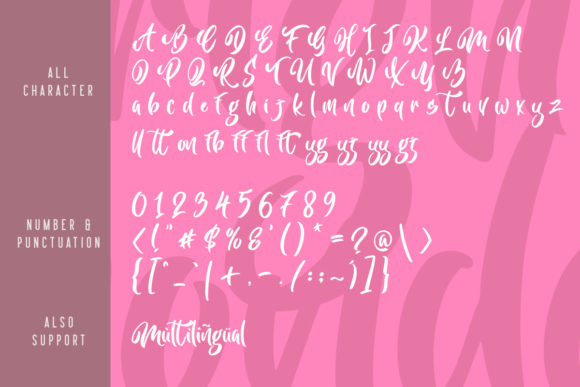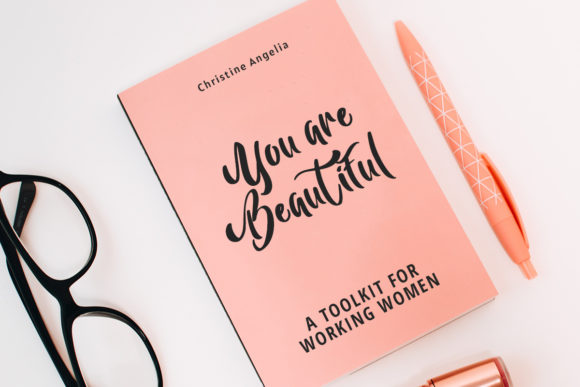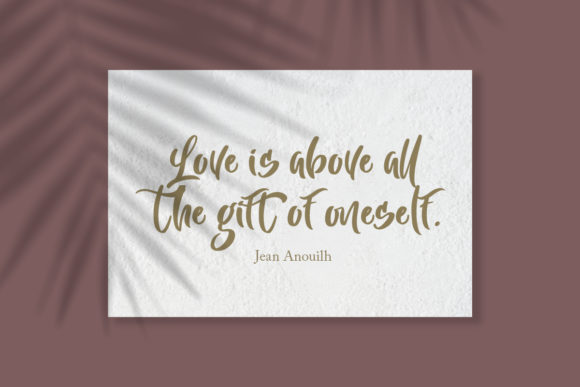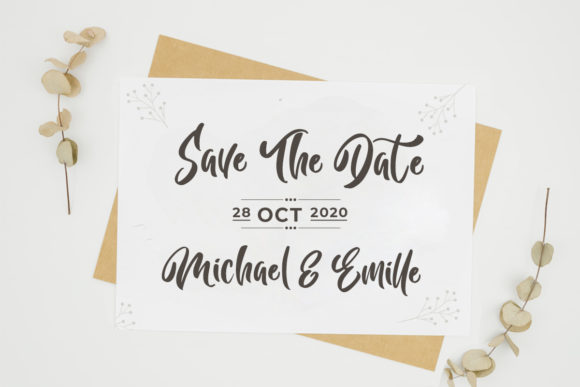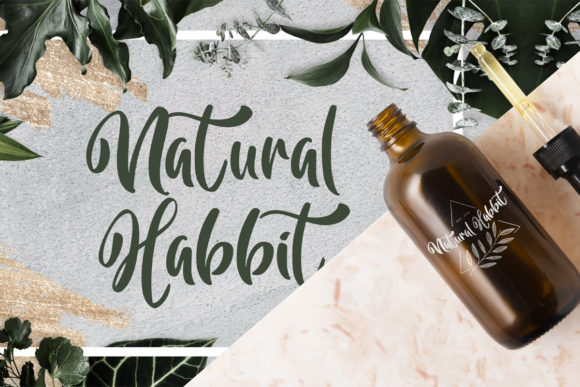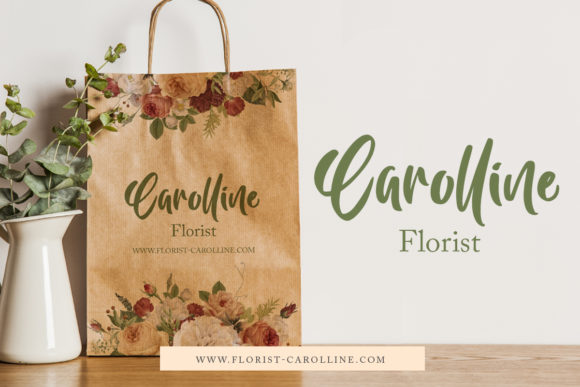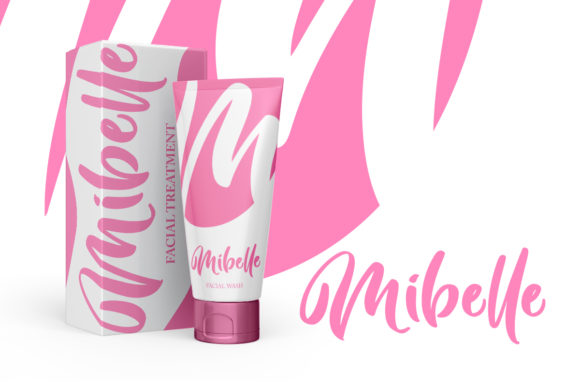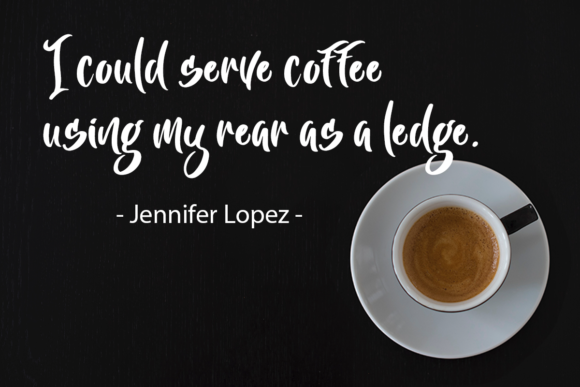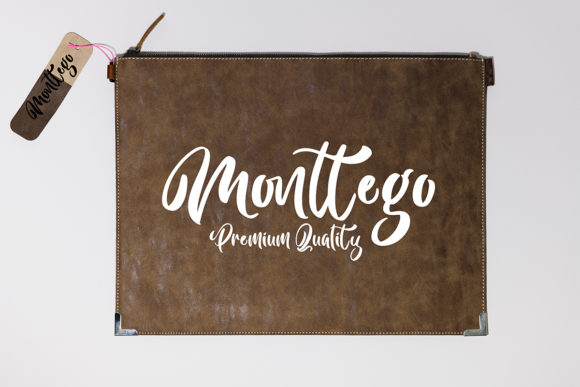
Bright Monday Font
About Bright Monday Font
Bright Monday feels equally charming and elegant. This stunning handwritten font is a stylish homage to classic calligraphy. It features a varying baseline, smooth lines, gorgeous glyphs and stunning alternates.